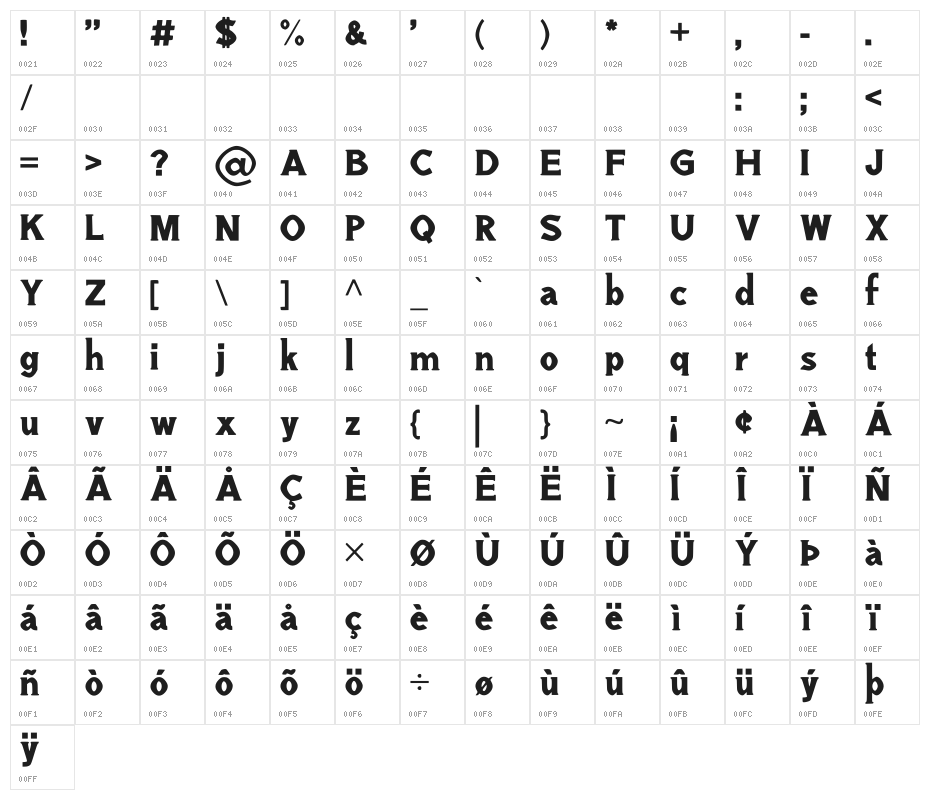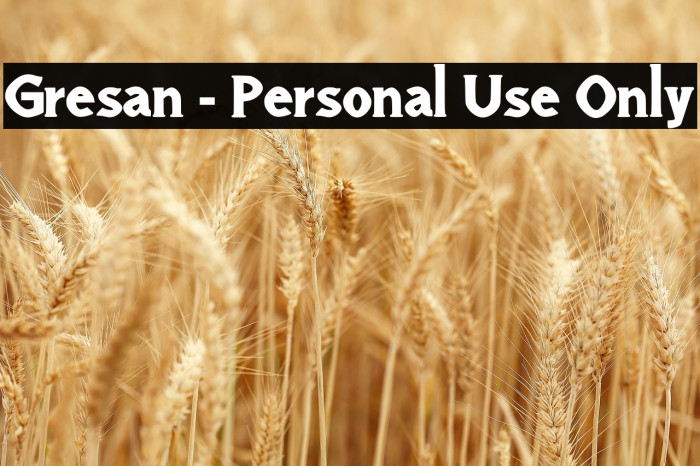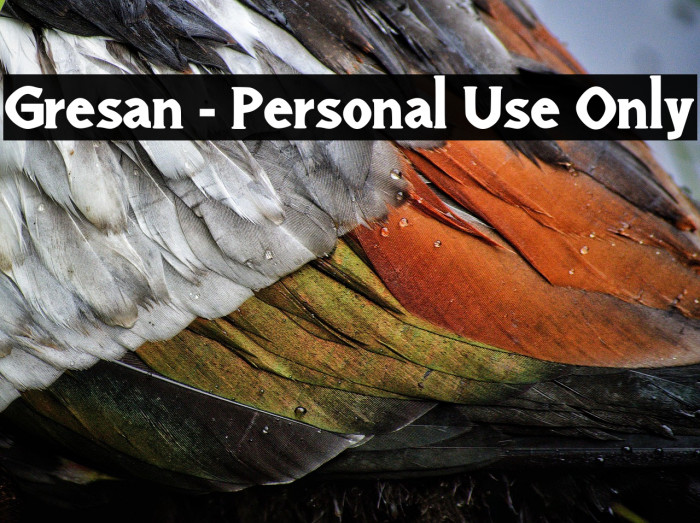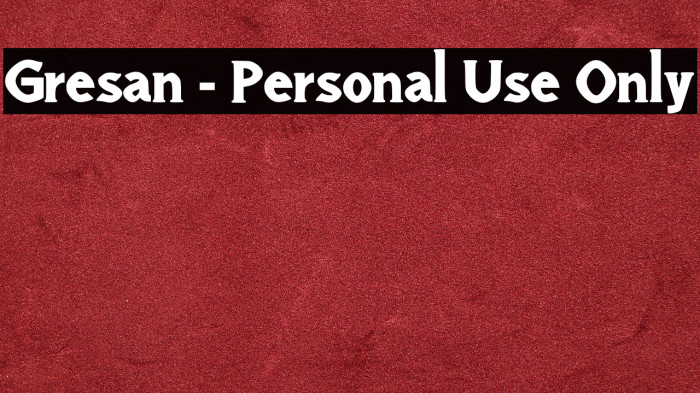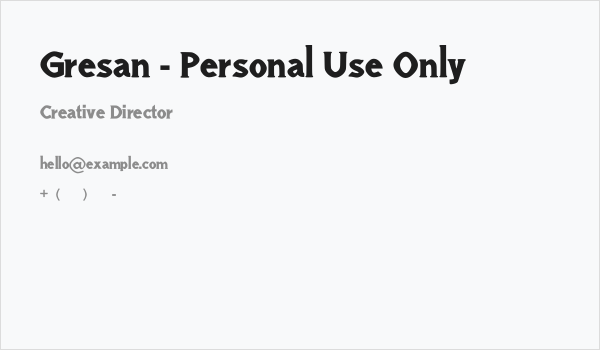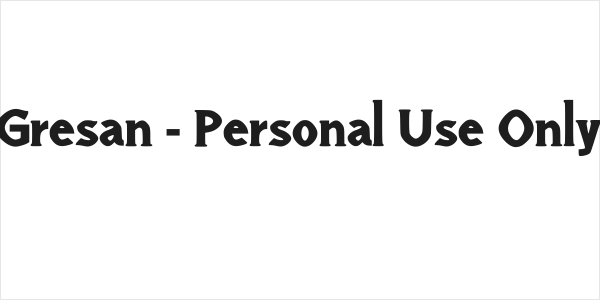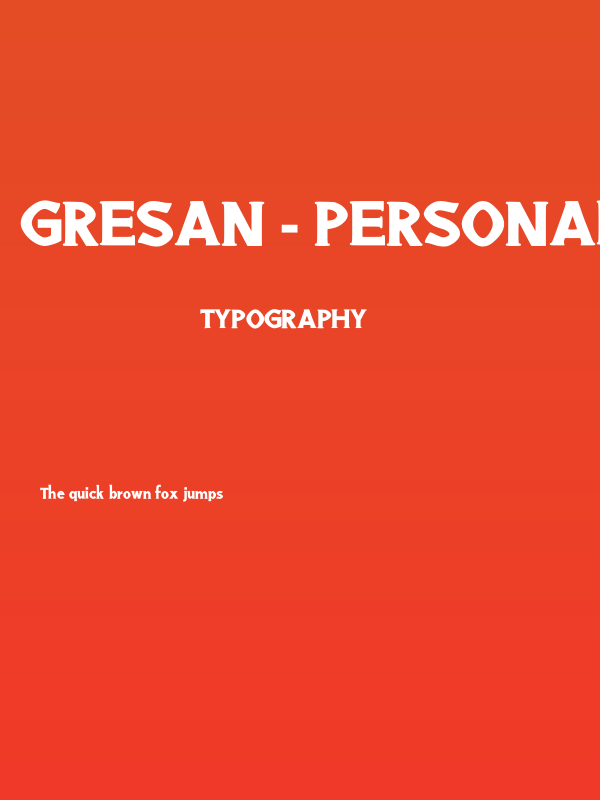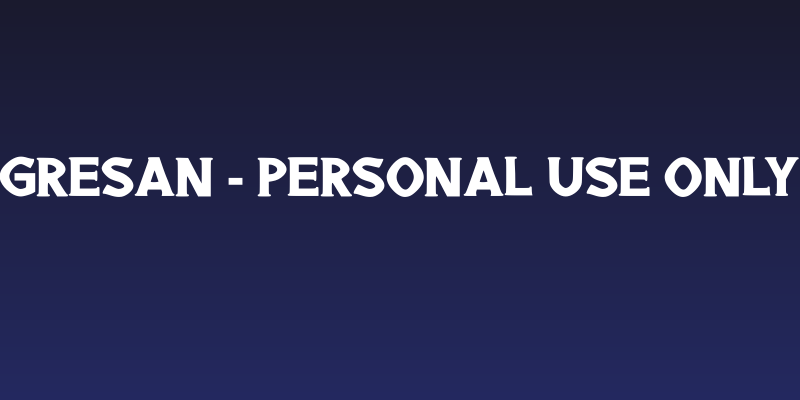
Gresan - Personal Use Only Font
Gresan - Personal Use Only Description
This font features a bold and dynamic style with strong, thick strokes that give it a commanding presence. The uppercase letters are particularly striking, with a slight serif that adds a touch of elegance and tradition. The lowercase letters maintain the boldness, offering a consistent look across both cases. The numbers and special characters are equally robust, ensuring readability and impact. The overall design is reminiscent of classic serif fonts but with a modern twist, making it suitable for a variety of applications where a strong visual statement is needed.
| Proposed Projects | Ideal for headlines, posters, branding, and any project requiring a strong visual impact. |